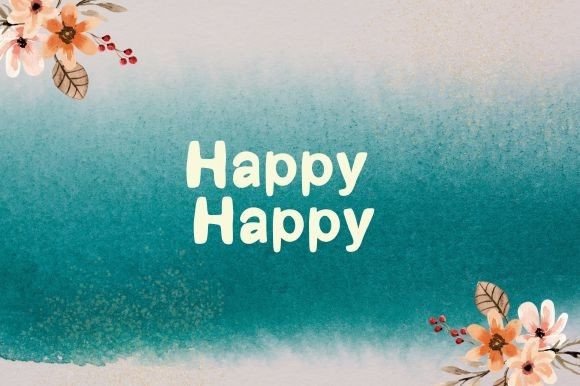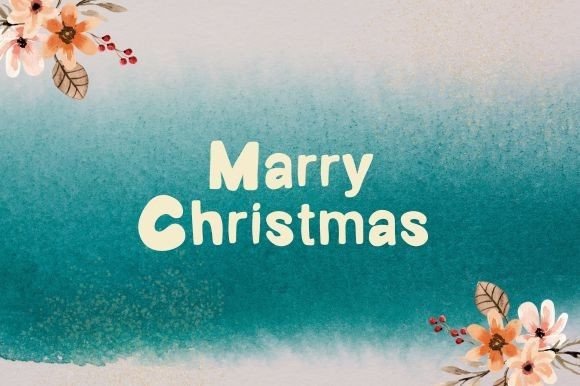
Introduction to Pending Sn Font
As a designer, there’s nothing quite like the thrill of bringing a creative project to life. You’ve poured over inspiration, sketched out ideas, and finally settled on a concept that you can’t wait to share with the world. But sometimes, the perfect finishing touch can make all the difference. That’s where Pending Sn Font comes in – a quirky and friendly handwritten font that adds a personal touch to any design.
With its unique, hand-drawn style and transparent background, Pending Sn Font is the perfect design resource for adding a little personality to your work. Whether you’re creating a logo, social media graphics, or a brochure, this high-quality font is sure to elevate your design and leave a lasting impression.
As a valuable addition to your design toolkit, Pending Sn Font is free to download and ready to use in your next creative project. So why settle for a generic, cookie-cutter font when you can add a little flair with Pending Sn Font?
Key Features of Pending Sn Font
- Unique, handcrafted design with a modern aesthetic
- Perfect for use in graphic design, web design, and digital art projects
Honest Review: Pending Sn Font
I recently had the chance to work with the Pending Sn Font and I must say, it’s been a pleasant experience. This font is a great addition to any design resource, especially for those looking for a unique touch for their creative projects.
What works well is its high quality and versatility. The font comes in a range of weights, from light to bold, making it perfect for various design needs. I also appreciate the transparent background, which allows for easy editing and customization.
- ✨ Large character set with a variety of weights
However, there are some limitations to consider. The font may not be suitable for all design projects, particularly those requiring complex typography or large text blocks. Additionally, the font may not be as extensive as some other commercial font options.
Overall, I’m impressed with the Pending Sn Font. It’s a great free download that can add a unique touch to your designs. While it may not be perfect for every project, it’s definitely worth considering for your next creative endeavor.
Pending Sn Font
Pending Sn Font is a high-quality design resource that can be used in various creative projects. This font is available for free download and features a transparent background, making it easy to use in any design.
Tips for Getting the Most Out of Pending Sn Font
Here are some tips for getting the most out of Pending Sn Font:
* Use it in conjunction with other design elements to create a cohesive look.
* Experiment with different font sizes and styles to add visual interest.
* Use the transparent background to create a sense of depth and dimension.
Common Use Cases for Pending Sn Font
Here are some common use cases for Pending Sn Font:
* Logo design
* Branding materials
* Social media graphics
* Infographics
Alternatives to Pending Sn Font
Open Sans Font is a popular, high-quality sans-serif font ideal for creative projects that require a clean and modern design. It’s free to download and suitable for various design resources, including websites, mobile apps, and marketing materials. Use it for headings and body text to create a consistent and visually appealing design. Compared to Pending Sn Font, Open Sans is more versatile and widely supported across different devices.
Montserrat Font is a geometric sans-serif font perfect for design projects that require a strong, urban feel. It’s available for free download and features a transparent background, making it ideal for use on any design resource. Use it for headings and titles to add a touch of sophistication and elegance to your creative project. Compared to Pending Sn Font, Montserrat has a more modern and edgy look, making it suitable for projects that require a bold statement.